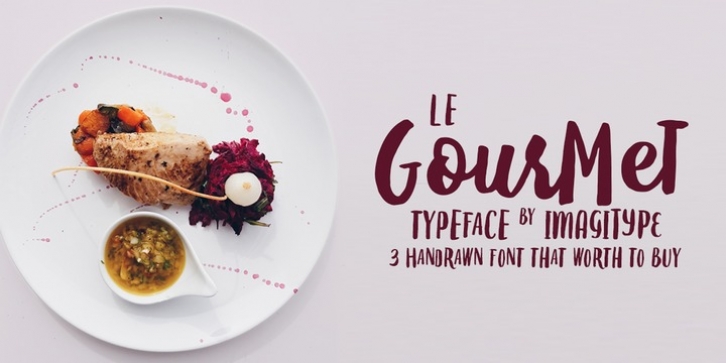
Le Gourmet was published by Imagi Type. Le Gourmet contains 3 styles and family package options.
Le Gourmet is a handmade font family consisting of 3 fonts made with ink and a brush. Le Gourmet & Le Gourmet Bouncy is an all caps font, but upper and lower case are different and you can easily interchange the glyphs. You can create your own look and use it for logos, magazines, menus, books for children, invitations, wedding/greeting cards, packaging, labels, winery, etc.